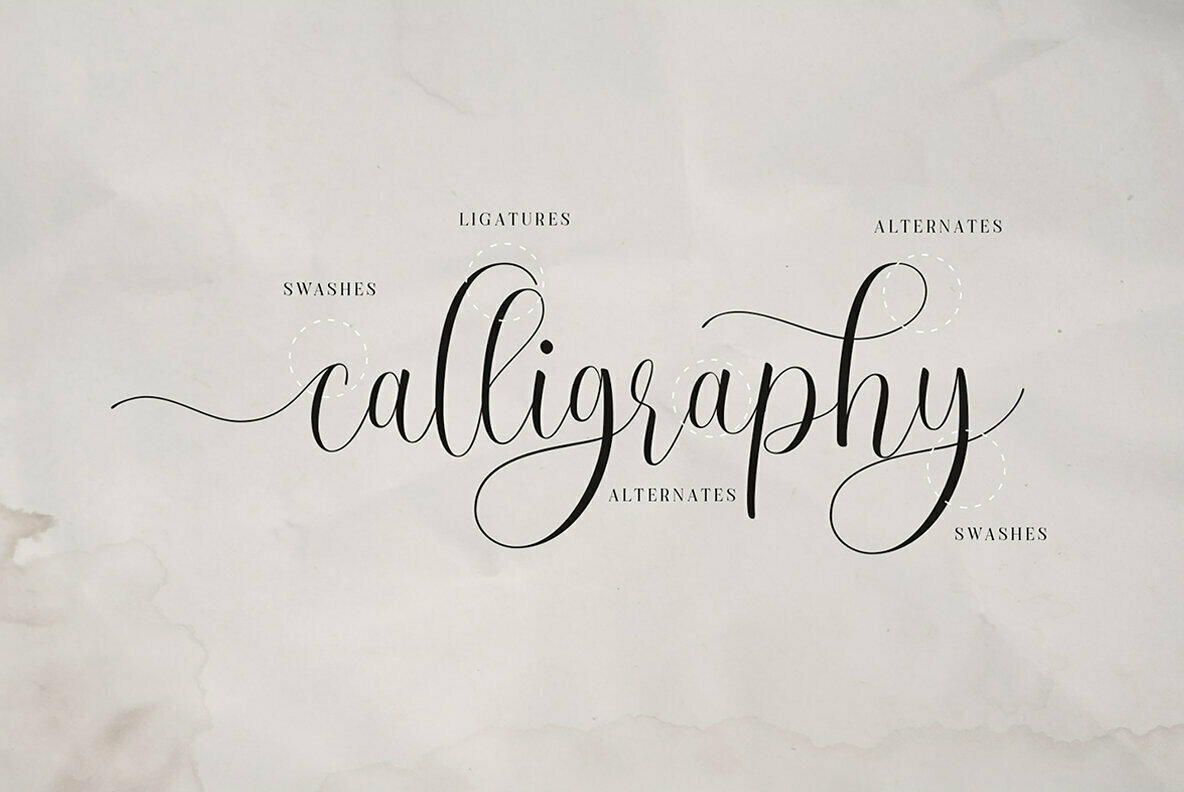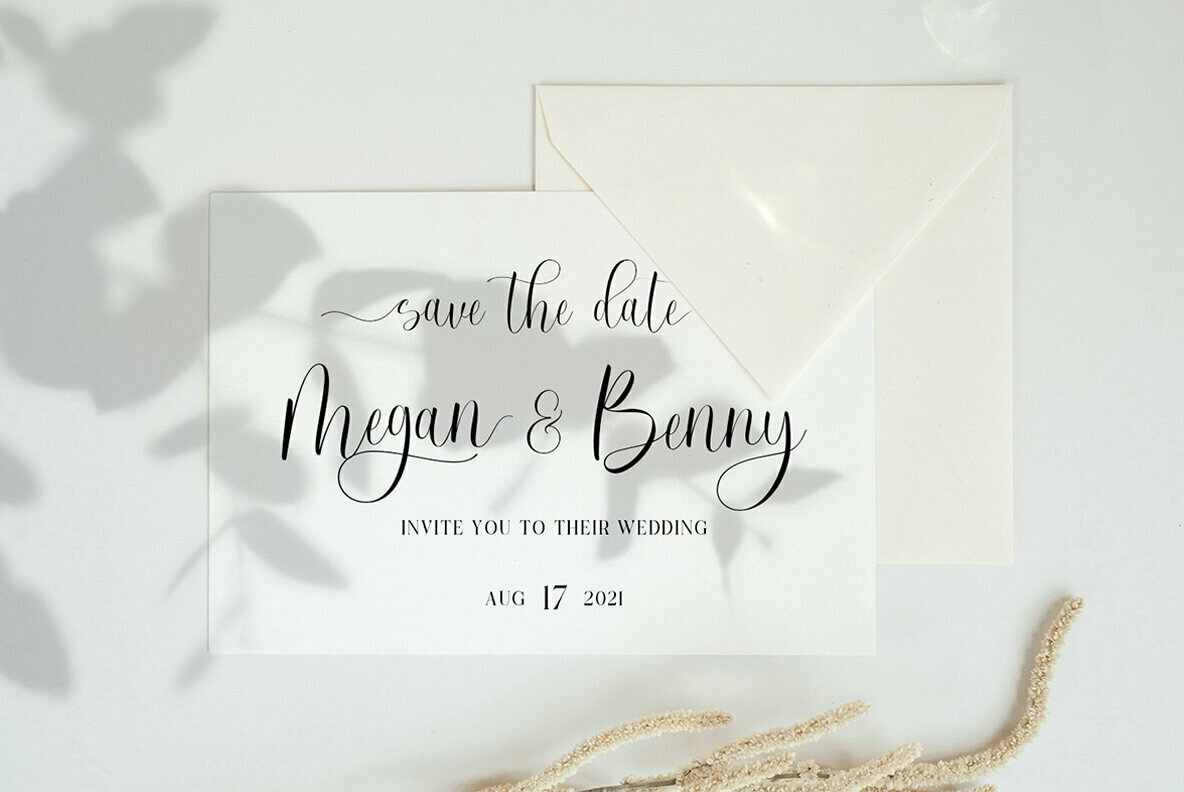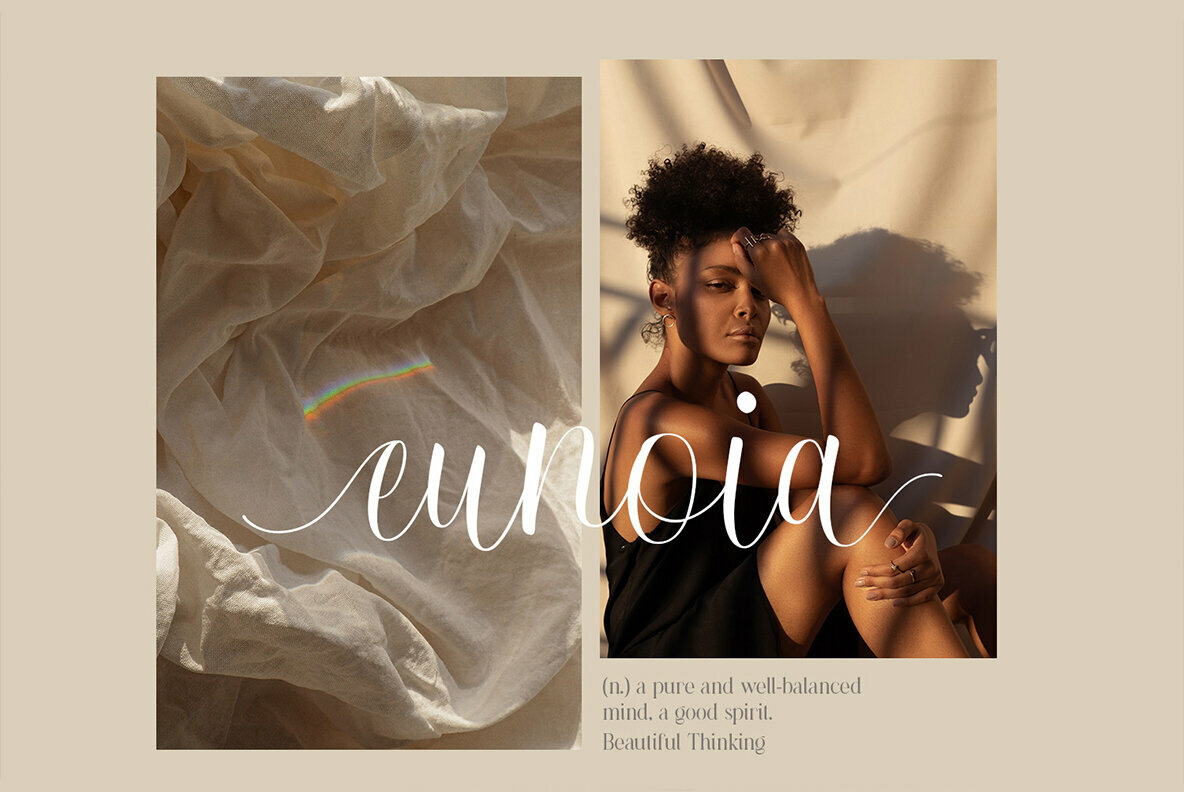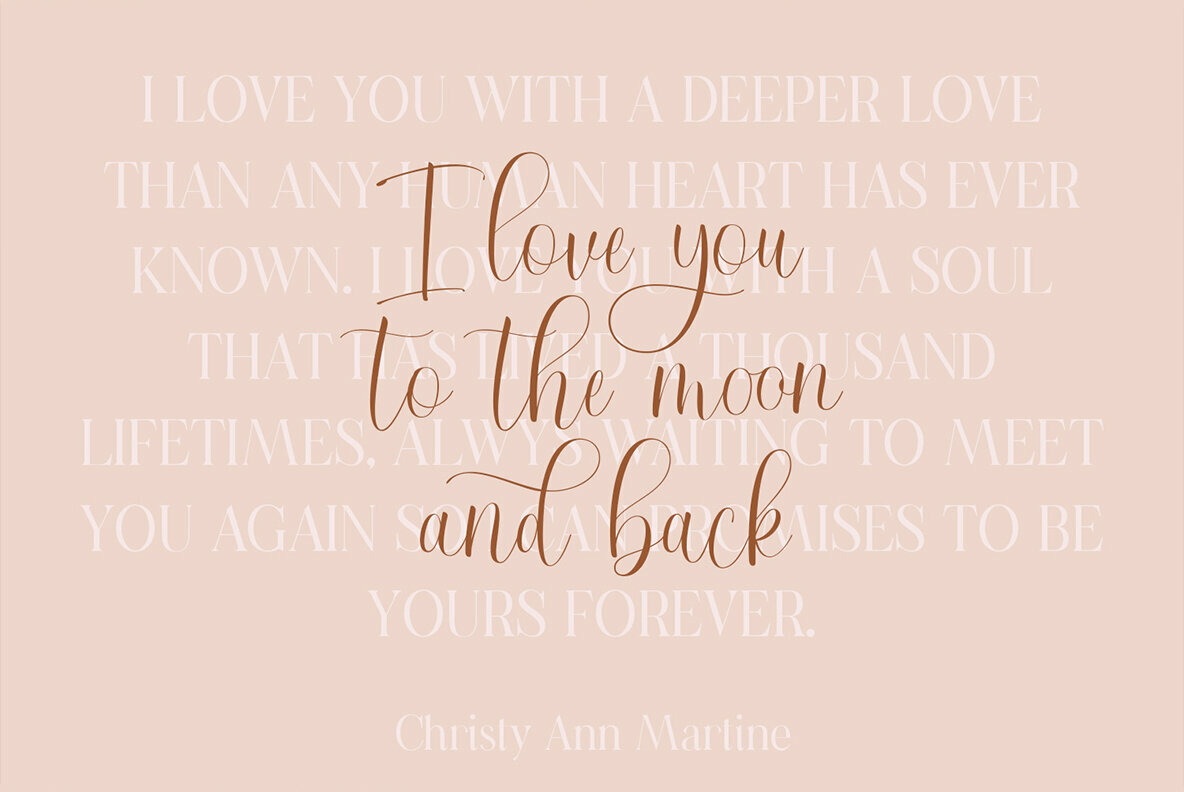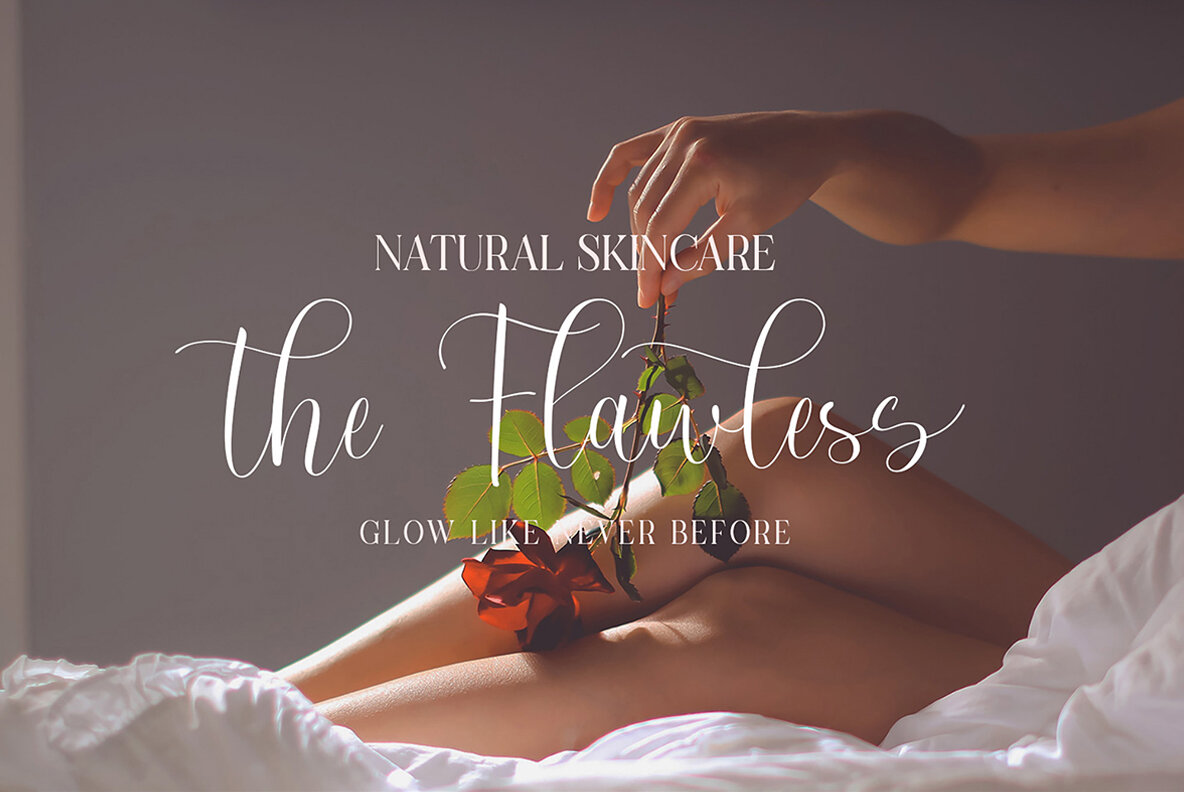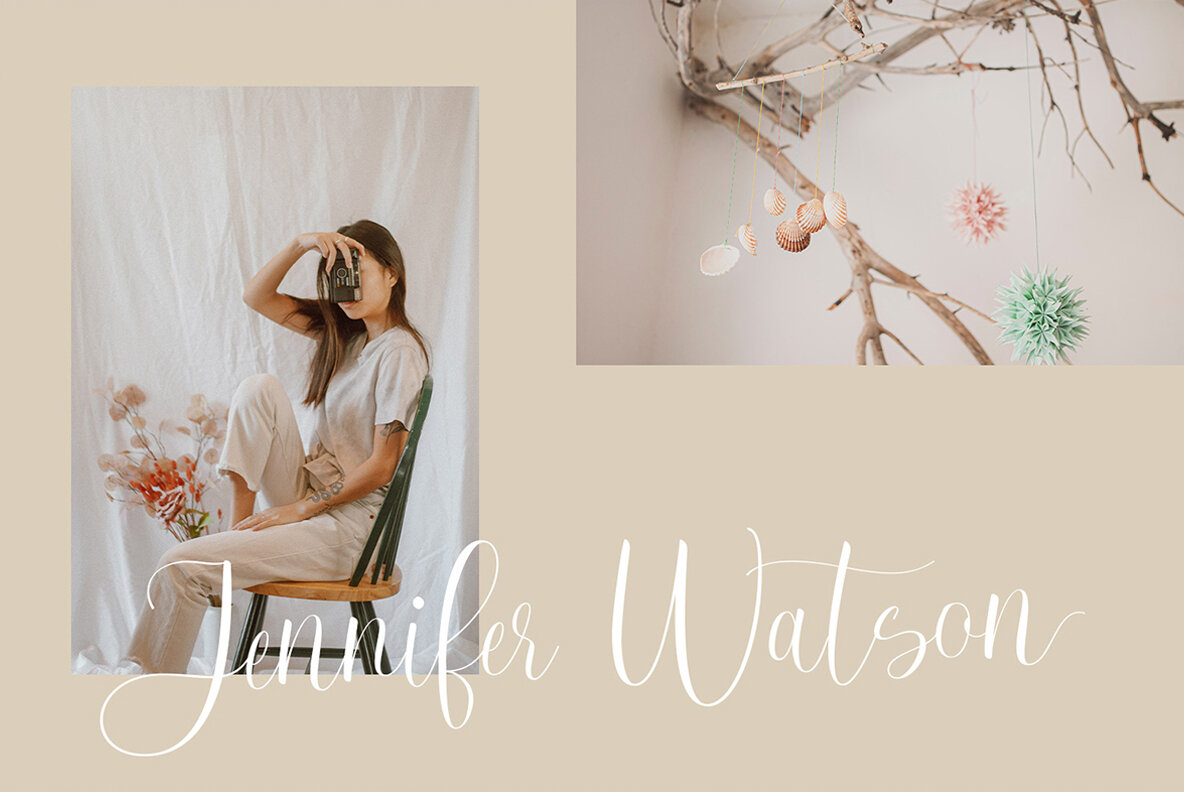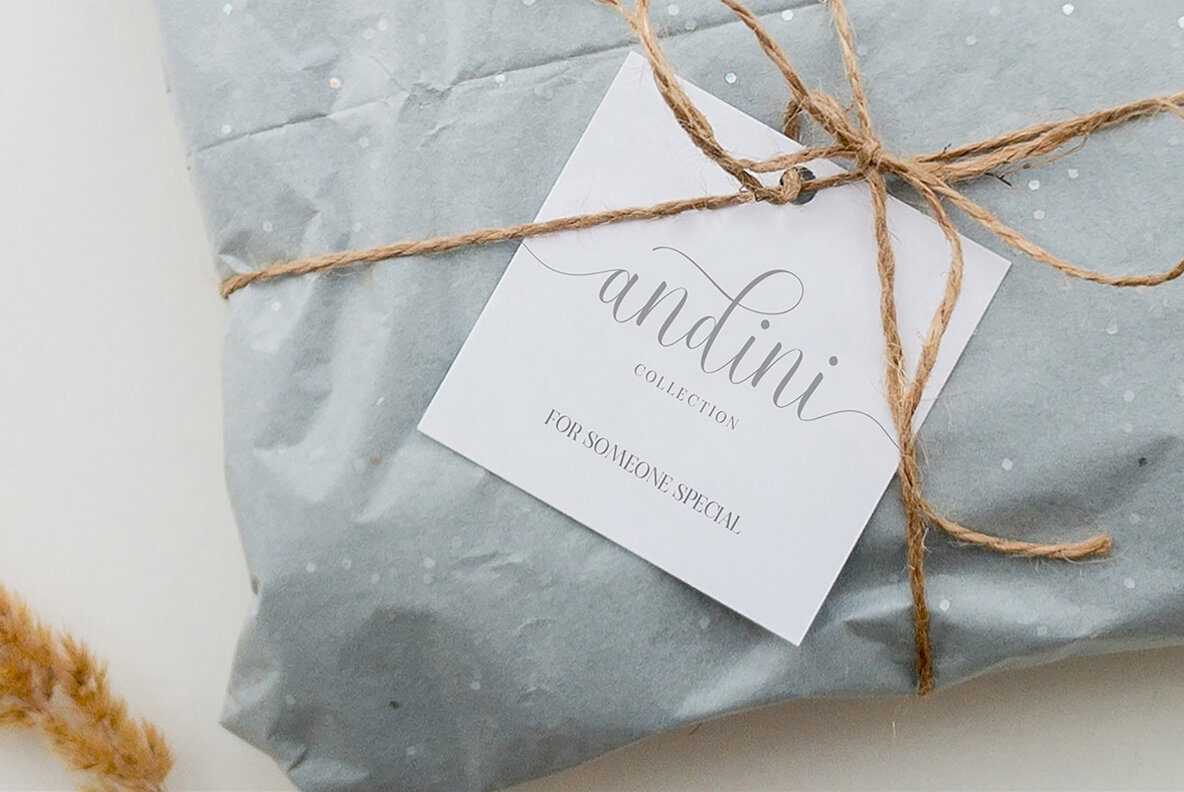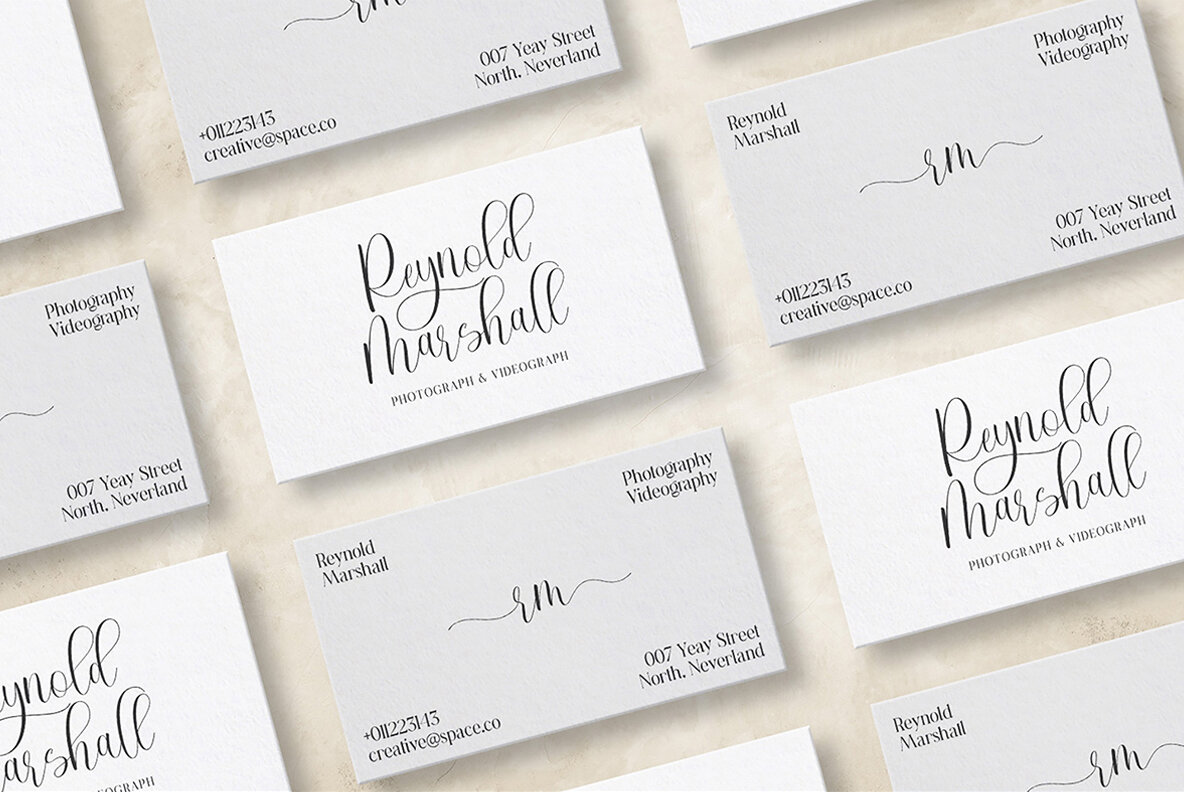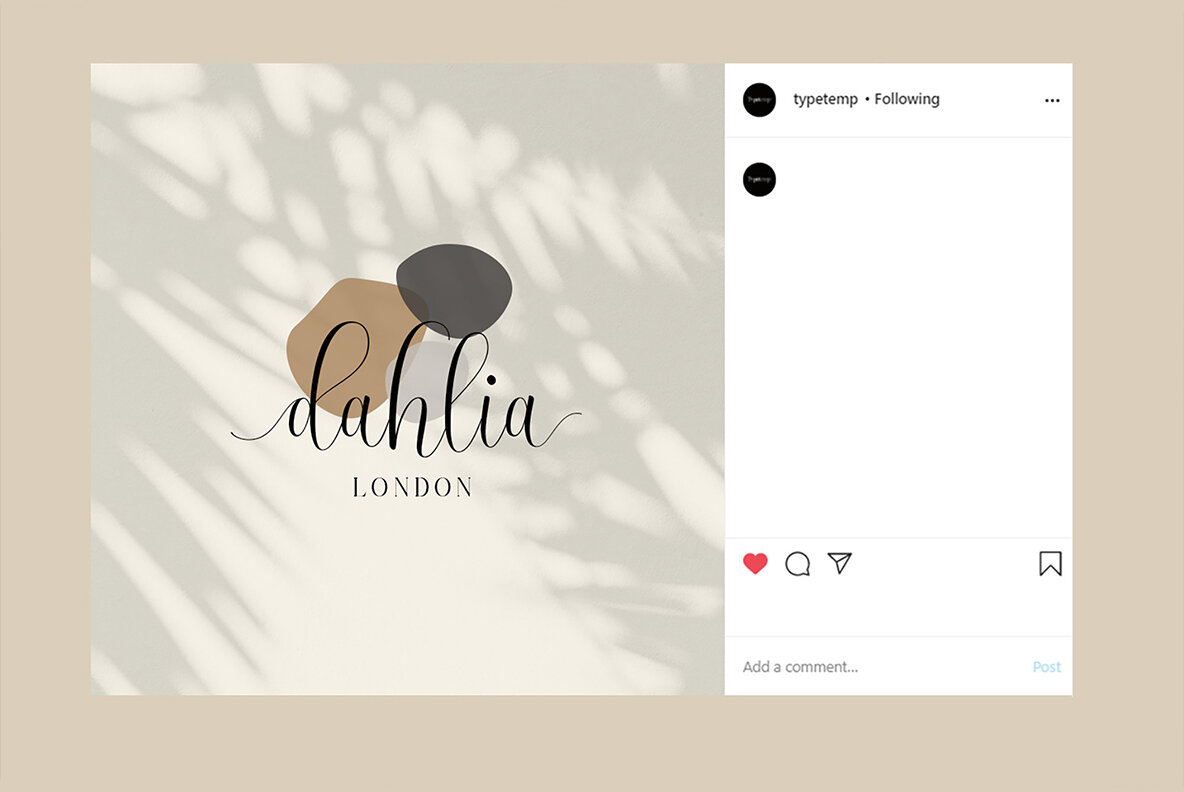
RuthClair Font
RuthClair Regular
Embrace the charm of RuthClair, an aesthetic handwriting font that seamlessly blends chic elegance with modern sophistication. Ideal for those seeking a refined touch, this script calligraphy font enhances any design project, from wedding invitations to branding materials.RuthClair: Chic Script Calligraphy for Elegant Designs